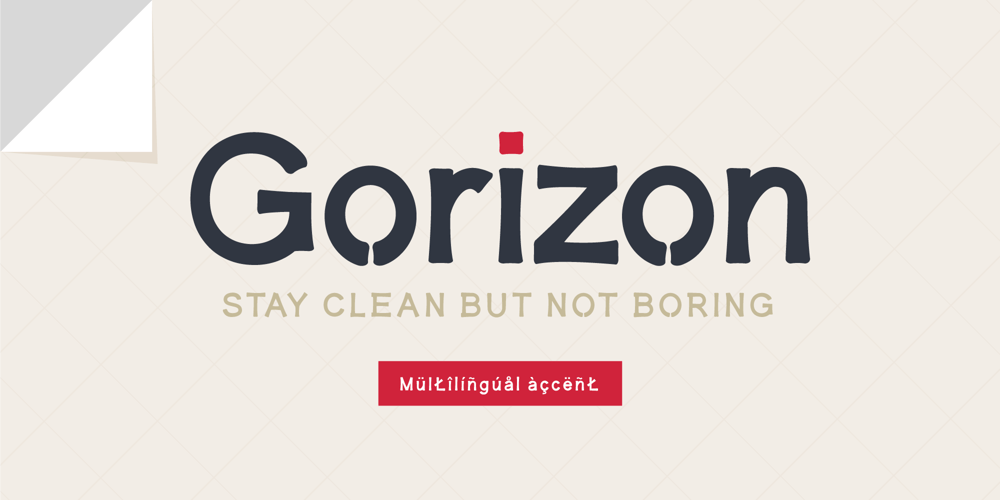
Gorizon Font Family was designed by Agustian Eko Saputro, Aprilia Nurina Putri and published by Mightyfire. Gorizon contains 1 styles and family package options. Looking for a font that has clean, modern yet unique looks?Gorizon is the answer! With firm lines, this font has an attractive appearance for the readers.This font is suitable for magazines, books, posters or other creative artworks.Enjoy and have fun in using Gorizon!